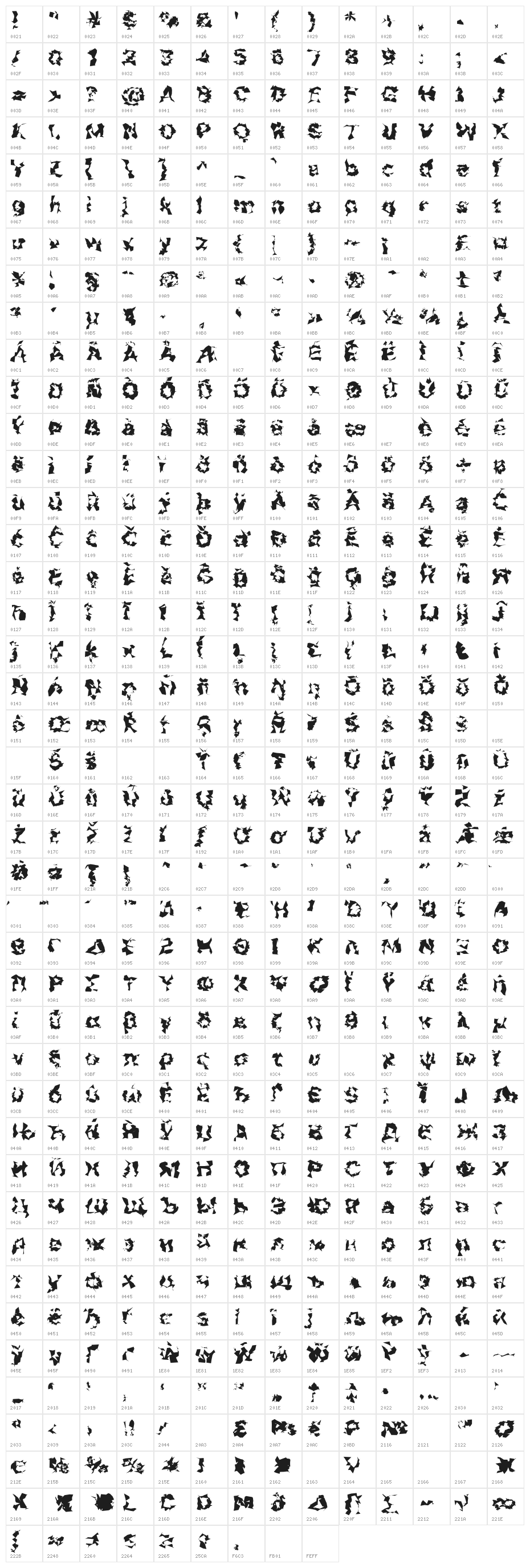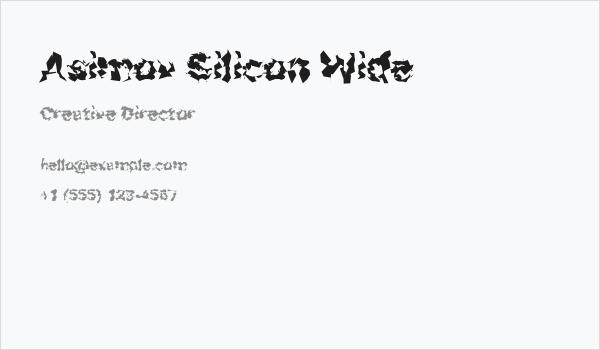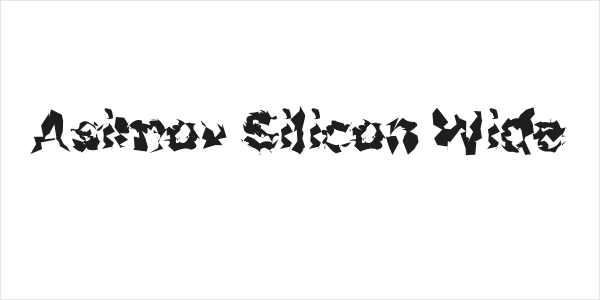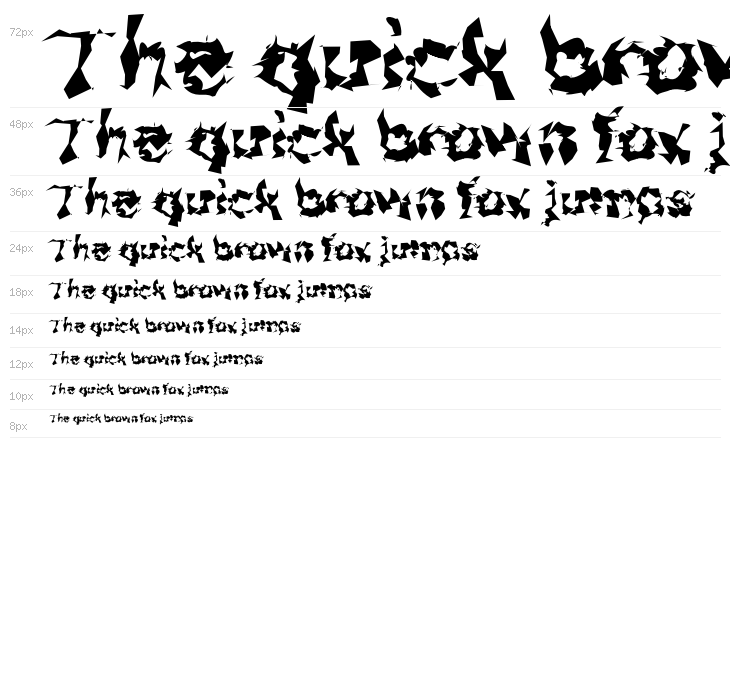
Asimov Silicon Wide Font
Asimov Silicon Wide Description
This font features a highly decorative and abstract design, characterized by sharp, angular shapes and fragmented forms. The letters are composed of jagged edges and irregular patterns, giving it a chaotic yet artistic appearance. The style is reminiscent of shattered glass or digital glitches, creating a sense of movement and energy. Each character is unique, with varying degrees of fragmentation, making it a standout choice for projects that require a bold and unconventional aesthetic. The font's complexity and visual impact make it suitable for creative and experimental designs.
| Overall Style | Modern, Experimental |
| Use Case | Headlines, Logos, Artistic projects |
| Proposed Projects | Ideal for album covers, posters, digital art projects, and any design requiring a bold, unconventional aesthetic. |